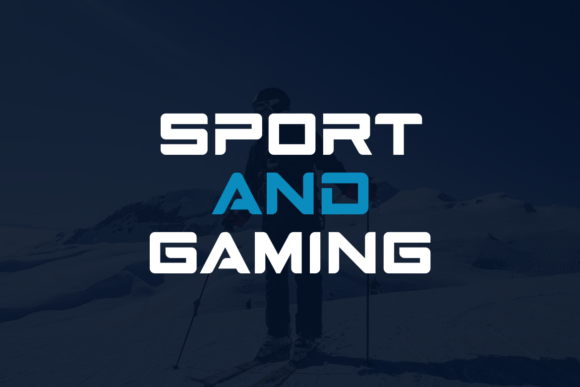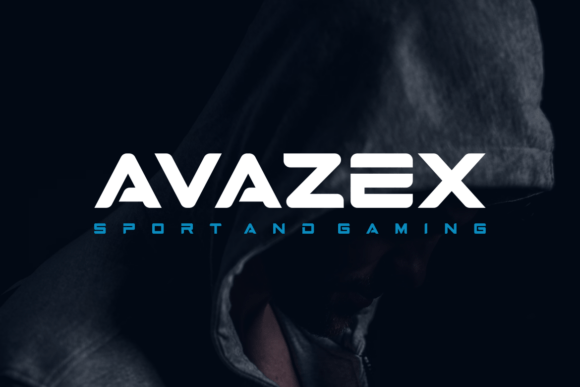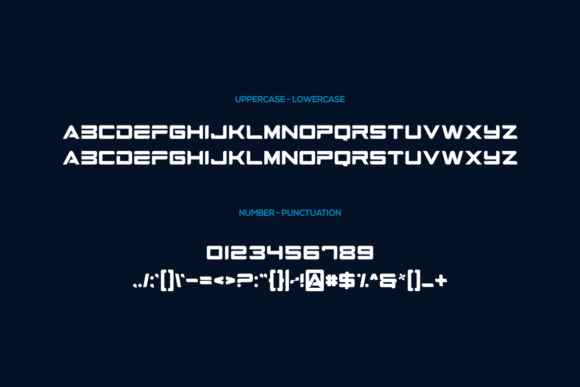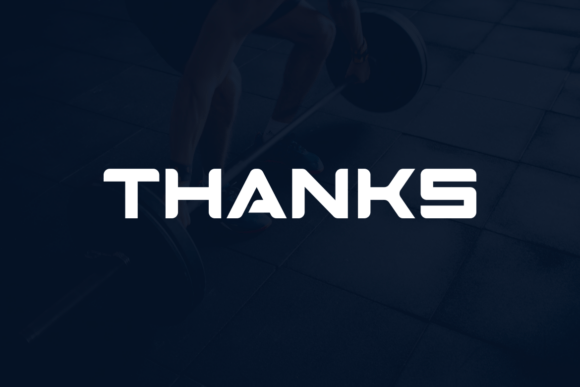
The Perfect Game-Changer for Sports and Tech Designs
As a designer, there’s nothing quite like the rush of seeing your latest project come to life. You’ve poured your heart and soul into it, and the final result is a true masterpiece. But what happens when you’re working on a project that requires a font that’s as bold and energetic as the sports teams or tech companies you’re designing for?
Enter the Avazex Sport Font, a modern sans-serif typeface that’s designed to give your sports branding, tech projects, and fitness campaigns the sleek and futuristic look they deserve. With its geometric design and sharp angles, this font is the perfect choice for designers who want to make a statement and stand out from the crowd.
Avazex Sport Font Key Features
- Font Size and Style: Avazex Sport Font comes in 4 font sizes (Regular, Light, Medium, Bold) and supports a wide range of languages.
- Unique Characteristics: Avazex Sport Font features a modern, dynamic design with bold lines, making it perfect for sports, action, and energetic themes.
- Font Weight and Width: The font has a wide range of font weights (from Light to Bold) and widths, allowing for flexibility in design and layout.
Avazex Sport Font Review
When I first laid eyes on Avazex Sport Font, I was excited to dive into its unique aesthetic and see if it would be a great fit for my next design project. Here’s what I thought:
- Unique, sporty vibe: Avazex Sport Font has a distinct style that’s perfect for projects related to sports, fitness, or outdoor activities.
- Highly legible: The font is easy to read, even at smaller sizes, making it a great choice for body text or headings.
- Wide character set: Avazex Sport Font includes a wide range of characters, including accents and punctuation, which is a must for any font.
- Limited flexibility: Avazex Sport Font is a bit too loud and bold for more formal or professional projects.
- No italic or bold-italic styles: This lack of variation limits the font’s versatility.
Overall, I think Avazex Sport Font is a great choice for projects that need a fun, energetic vibe. While it may not be suitable for every project, it’s definitely a solid option for those looking for a unique, sporty font.
Tips for Getting the Most Out of Avazex Sport Font
Avazex Sport Font is a versatile font that can be used in a variety of design projects.
Here are some tips for getting the most out of this font:
– Use it to create bold, eye-catching headlines.
– Pair it with other fonts to create a unique and stylish design.
– Experiment with different font sizes and colors to add visual interest to your design.
Common Use Cases for Avazex Sport Font
Avazex Sport Font is commonly used in:
– Sports and fitness branding.